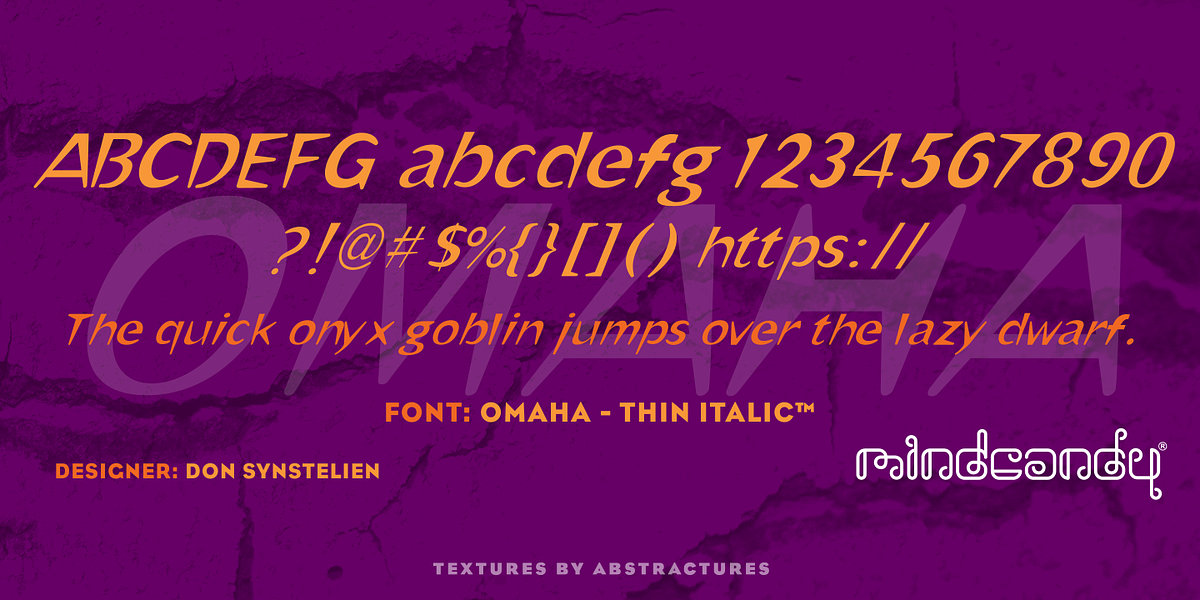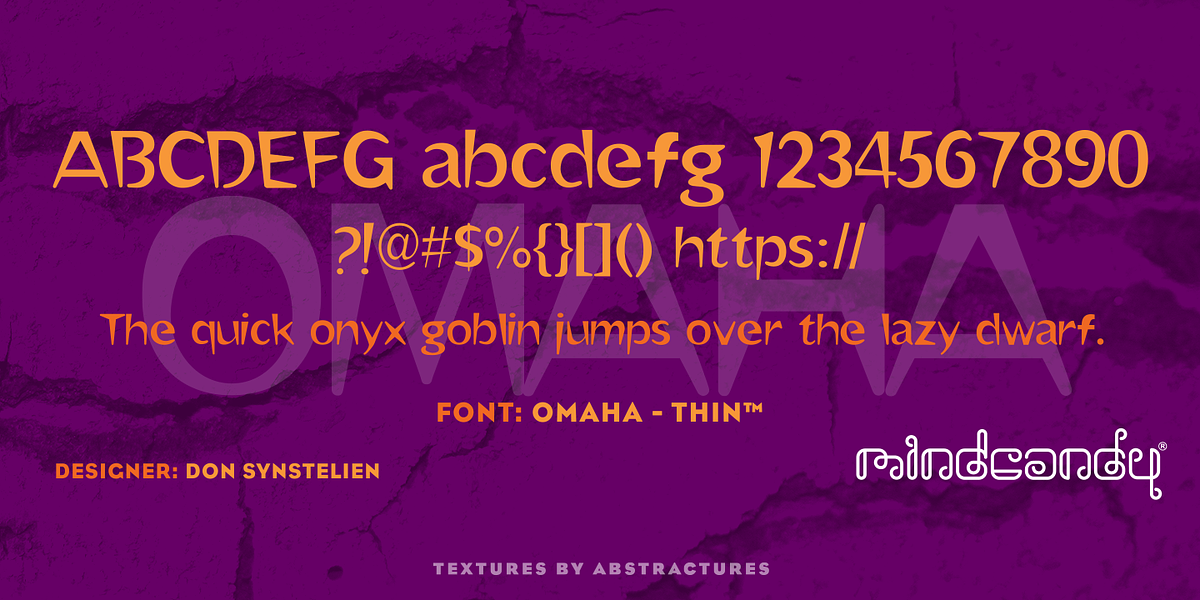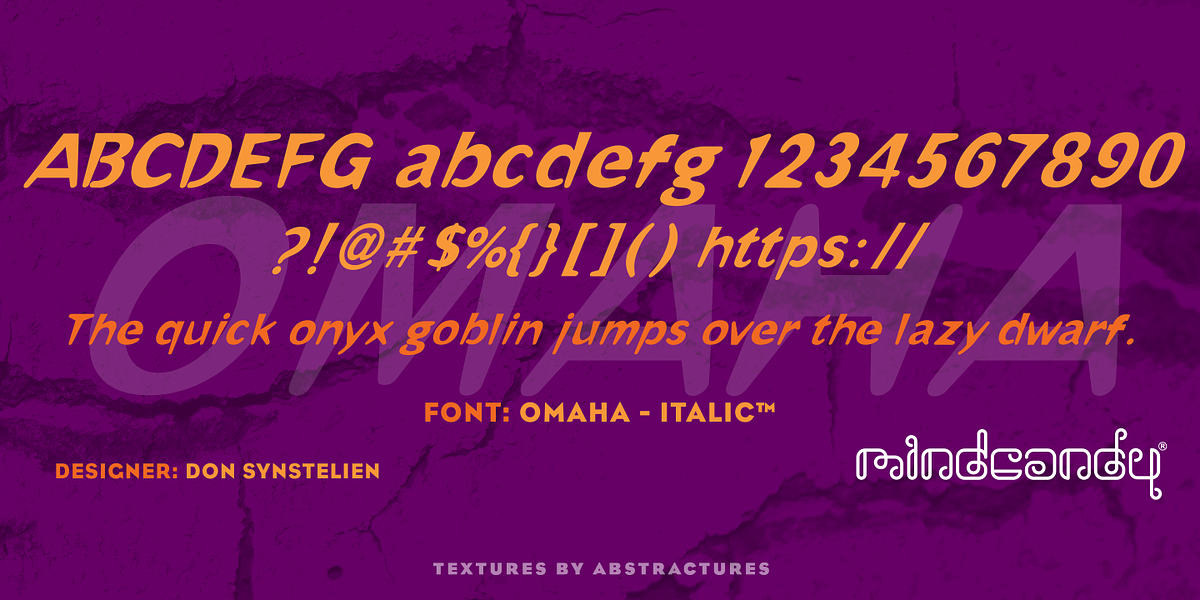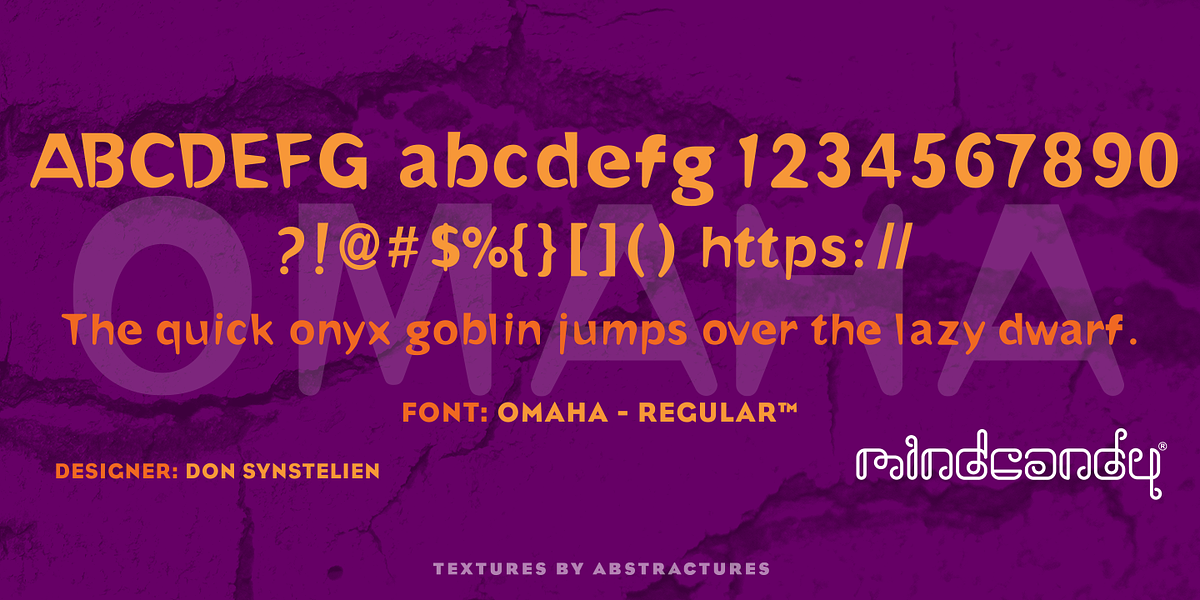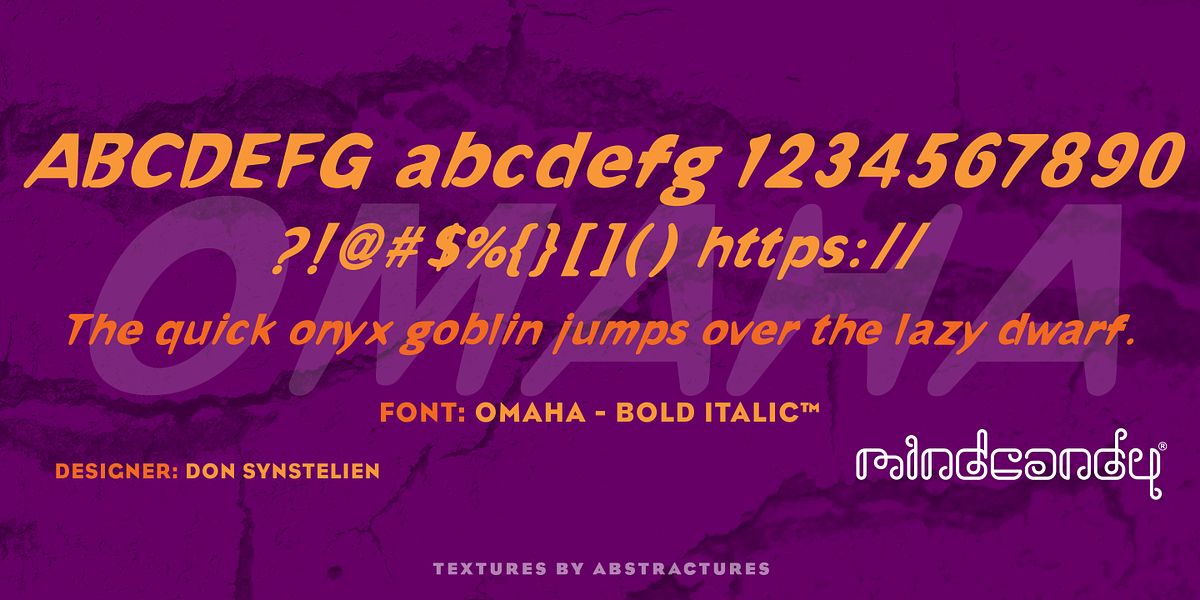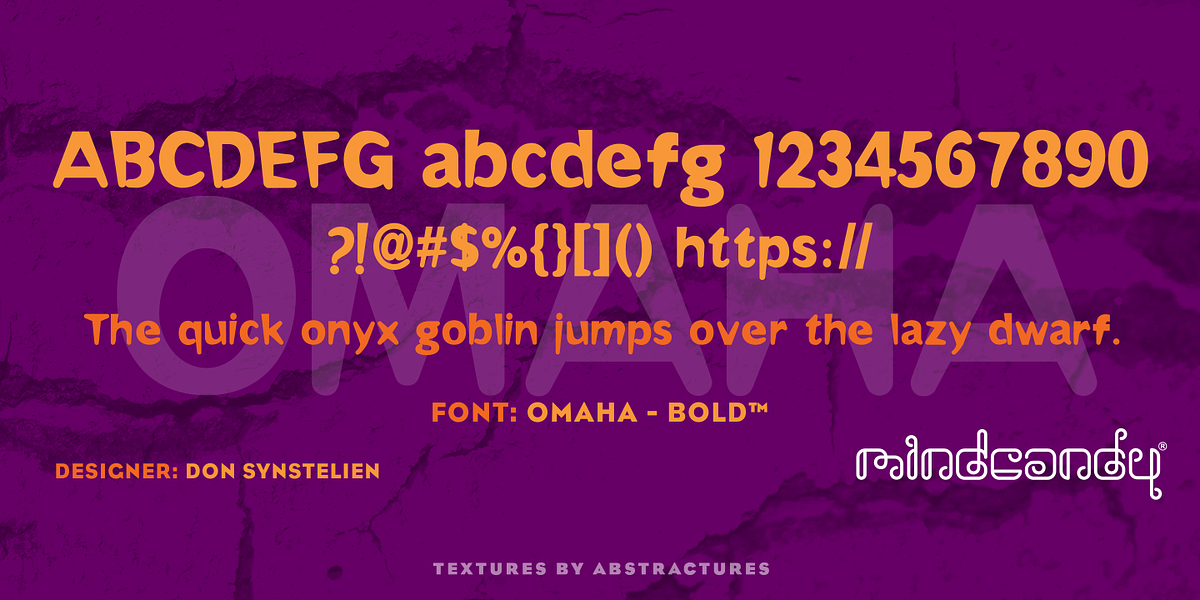
Omaha™
This bouncy display font is a great choice for adding a touch of fun and personality to your designs. Its playful nature makes it suitable for headlines, branding, posters, and other projects where you want to capture attention.